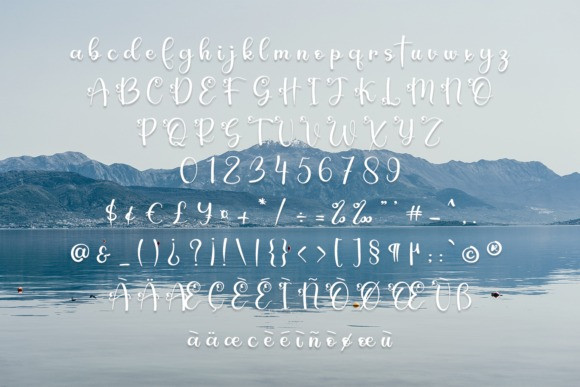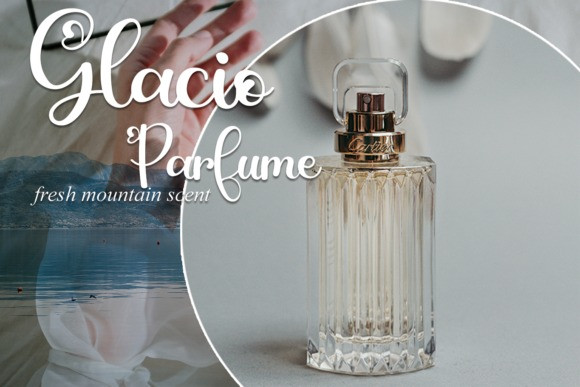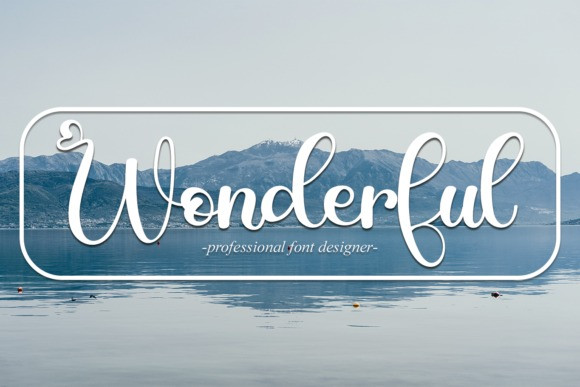
Wonderful Font
Wonderful Script Font is a sophisticated handwritten font that’s great for delivering any message with confidence, authenticity and charm. It will elevate a wide range of crafting ideas, from cards, to branding, labels and much more.